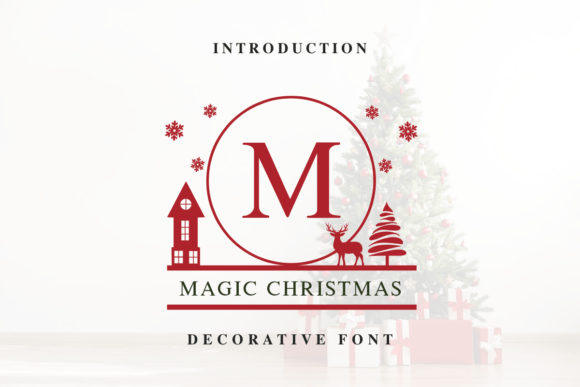
Magic Christmas Monogram Font: A Festive and Whimsical Holiday Decorative Font
The holiday season is upon us, and with it comes the desire to add a touch of magic and wonder to our gifts, invitations, and decorations. One way to do this is with the Magic Christmas Monogram Font, a charming decorative serif font that captures the warmth and enchantment of the holiday season. In this article, we’ll explore the features and benefits of this delightful font and how it can be used to add a festive touch to your holiday projects.
What is Magic Christmas Monogram Font?
Magic Christmas – A Festive Monogram Display Font is a decorative serif font that is inspired by the cozy and nostalgic feel of the holiday season. Each letter is carefully crafted to resemble a miniature winter wonderland, complete with intricate details such as snowflakes, a pine tree, a reindeer, and a quaint house. This beautiful font is perfect for creating personalized gifts, festive invitations, seasonal branding, packaging, home decor prints, and more.
Key Features of Magic Christmas Monogram Font
- Uppercase-centered typeface: The Magic Christmas font is designed with uppercase letters, making it perfect for creating bold and eye-catching monograms.
- Cozy winter village vignettes: Each letter is nestled inside a charming winter village scene, complete with snowflakes, a pine tree, a reindeer, and a quaint house.
- Intricate details: The font features intricate details that add a touch of magic and wonder to your holiday projects.
- Perfect for personalization: The Magic Christmas font is ideal for creating personalized gifts, such as custom ornaments, holiday cards, and decorations.
Uses for Magic Christmas Monogram Font
The Magic Christmas Monogram Font is a versatile font that can be used for a variety of holiday projects, including:
Holiday Projects
- Personalized gifts: Create custom ornaments, holiday cards, and decorations with a personal touch.
- Festive invitations: Design holiday invitations, party decorations, and event branding with a festive and whimsical touch.
- Seasonal branding: Add a touch of holiday magic to your business’s seasonal branding, packaging, and marketing materials.
- Home decor prints: Create beautiful home decor prints, such as holiday wall art, garlands, and gift tags.
Benefits of Using Magic Christmas Monogram Font
The Magic Christmas Monogram Font offers several benefits, including:
Why Choose Magic Christmas Monogram Font?
- Unique and eye-catching: The font’s intricate details and cozy winter village vignettes make it a standout choice for holiday projects.
- Versatile: The font can be used for a variety of holiday projects, from personalized gifts to seasonal branding.
- Nostalgic feel: The font’s classic design and intricate details evoke a sense of nostalgia and wonder, perfect for the holiday season.
Tips for Using Magic Christmas Monogram Font
Here are some tips for using the Magic Christmas Monogram Font:
Getting the Most Out of Magic Christmas Monogram Font
- Use it sparingly: The font’s intricate details can be overwhelming if used excessively. Use it sparingly to add a touch of magic to your holiday projects.
- Pair it with complementary fonts: Pair the Magic Christmas font with complementary fonts to create a cohesive and visually appealing design.
- Experiment with colors: The font looks beautiful in traditional holiday colors, such as red and green, but feel free to experiment with other colors to create a unique look.
- Have fun: The Magic Christmas font is designed to add a touch of whimsy and wonder to your holiday projects. Have fun experimenting with it and seeing what you can create!
The Magic Christmas Monogram Font is a charming and whimsical font that is perfect for adding a touch of holiday magic to your projects. With its intricate details, cozy winter village vignettes, and nostalgic feel, this font is sure to become a favorite in your holiday design arsenal. Whether you’re creating personalized gifts, festive invitations, or seasonal branding, the Magic Christmas font is a versatile and eye-catching choice. So why wait? Download the Magic Christmas Monogram Font today and start adding a touch of magic to your holiday projects!